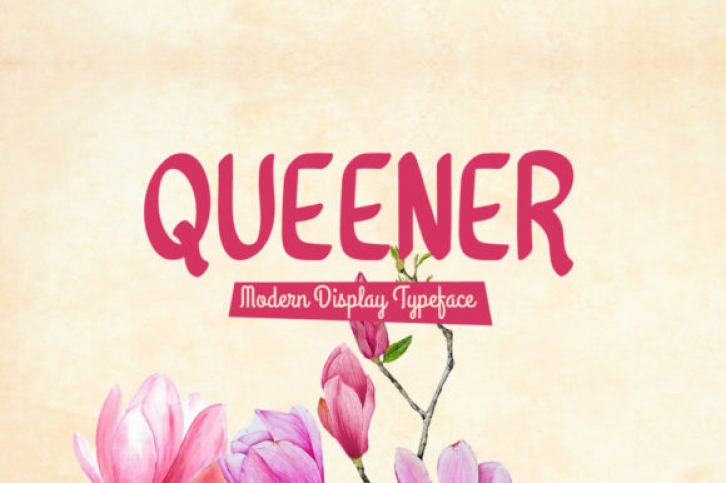
The Queener is a modern display font. It has a great readability and a clean look which makes it perfect for stationery, logos, t-shirts, papers, print designs, website headers, photo frames, flyers, music covers, and much more!